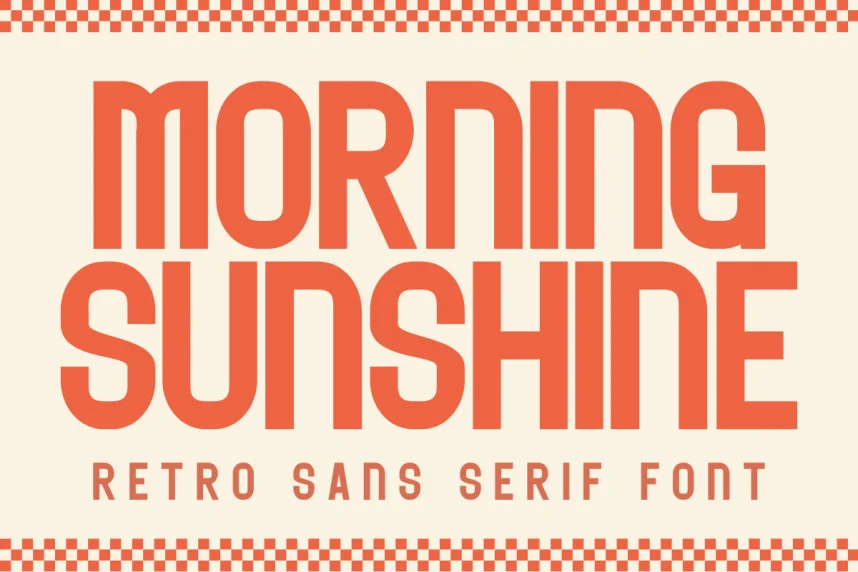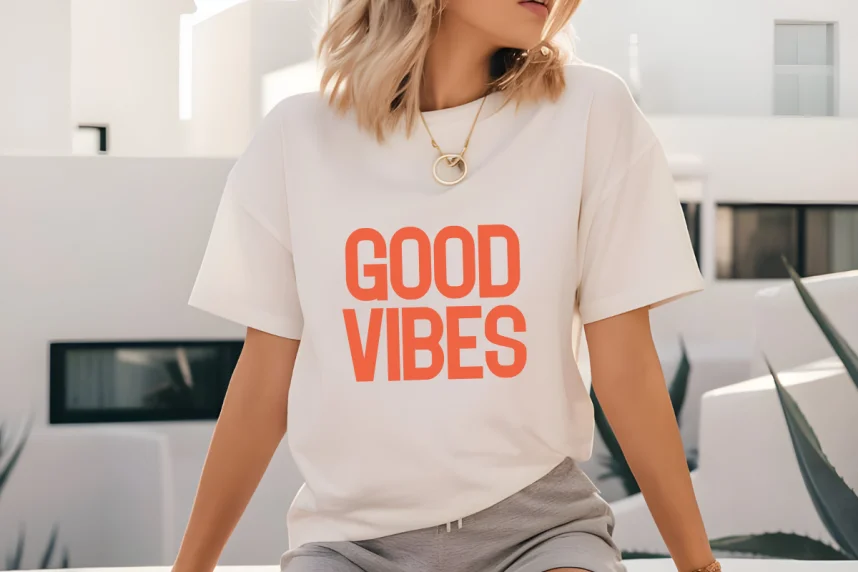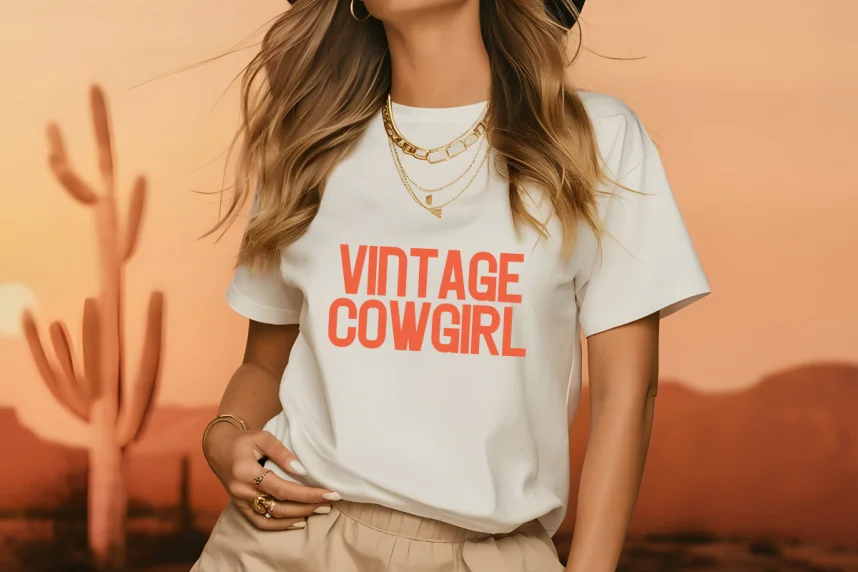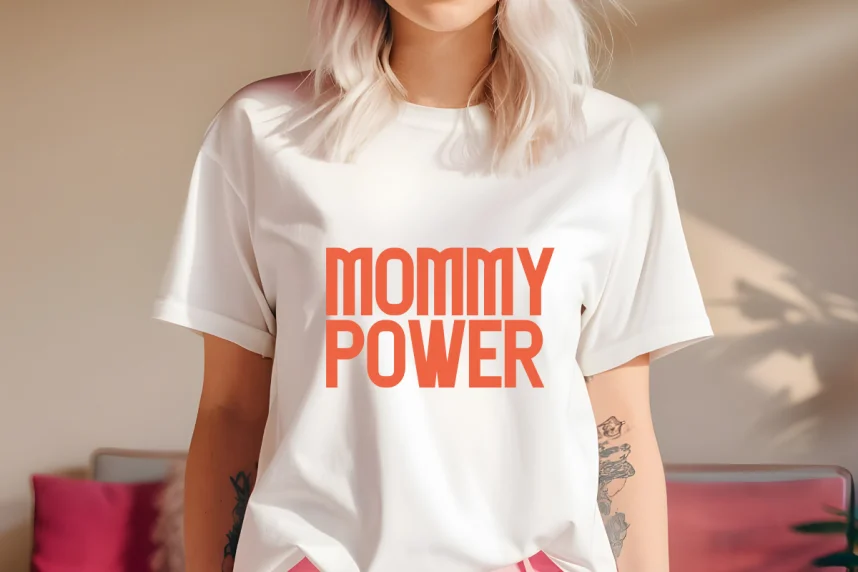
Morning Sunshine Font is a friendly sans-serif typeface designed for clear communication and approachable branding. Many sans-serif fonts feel too rigid for lifestyle or casual brands. Morning Sunshine solves this by using soft curves and open letterforms.
This font belongs to the sans-serif category. Its letterforms feature rounded terminals, even stroke width, and generous spacing. These traits improve readability on screens and printed materials. The font performs well at both small and medium sizes.
Morning Sunshine works well for branding, web content, mobile apps, social media posts, and educational materials. It is suitable for body text and headings alike. Designers often pair it with a simple display font for titles.